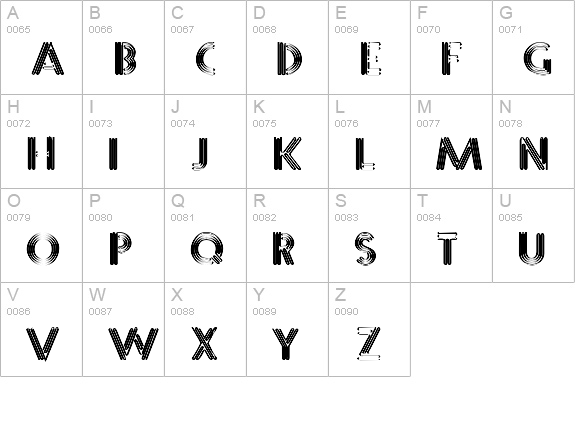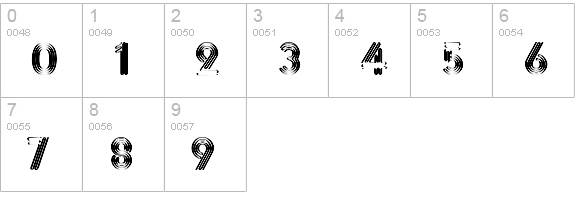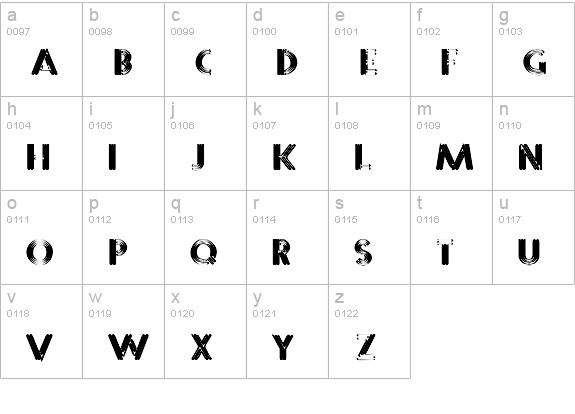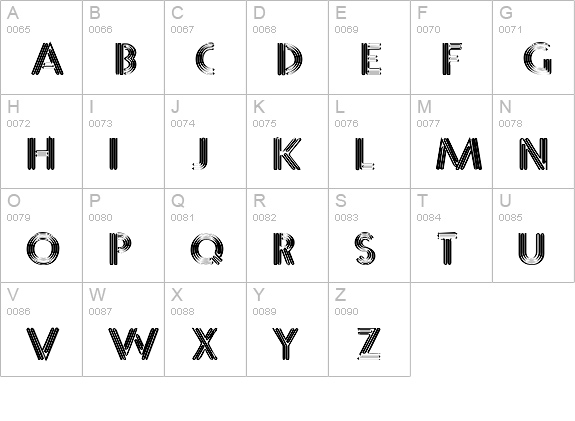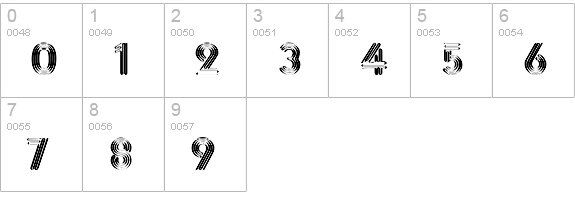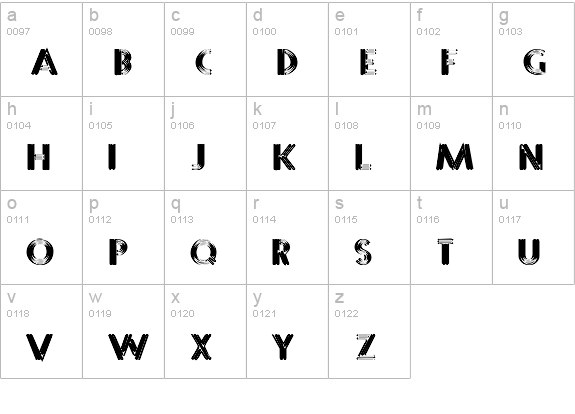
SterlingPanic font is a captivating and versatile typeface that exudes a sense of elegance and modernity. With its sleek lines and unique curves, SterlingPanic adds a touch of sophistication to any design project. Whether you're creating a logo, poster, or website, this font is sure to make a lasting impression. The best part? SterlingPanic is completely free to download at FontsMarket.com! You can easily access this stunning font and elevate your creative projects without breaking the bank. Embrace the beauty and versatility of SterlingPanic font today and watch your designs come to life in a whole new way.